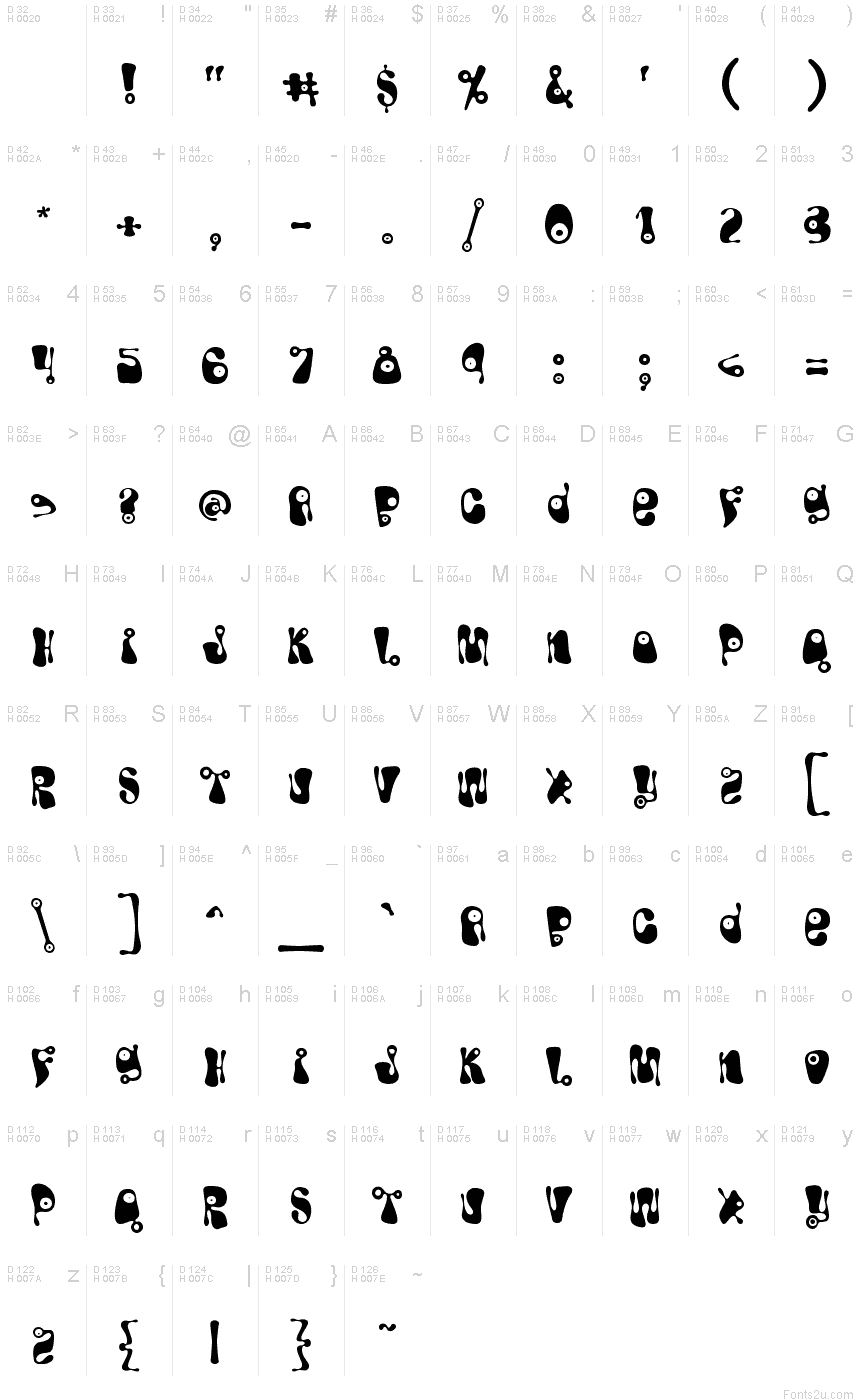
Bughouse by Brand Design and House Industries is a free psychedelic display font built from broad, swollen, irregular letterforms with the soft contours of poured wax. Round holes recur as decorative dots inside the lettering, and the shifting widths and loose, playful tilts give the alphabet a distinctly 1970s cartoon quality.
Its bubble-like shapes can merge with gooey illustrations, abstract patterns, or comic artwork, which makes it especially convincing for music posters, album packaging, and animated title cards. Toy branding and children's merchandise also suit its friendly, rubbery forms.
Bughouse